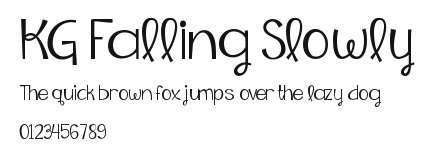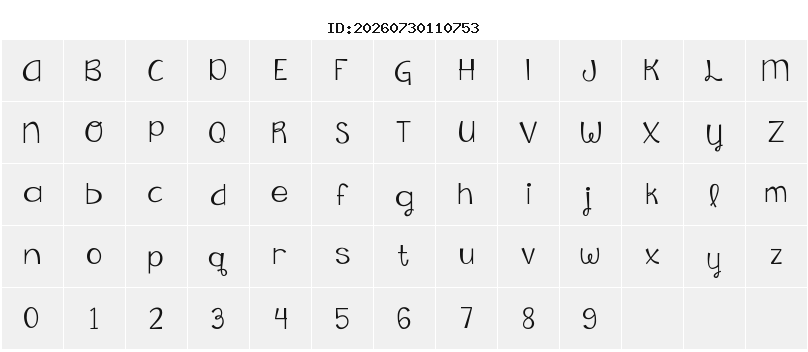
• Font Name: KG Falling Slowly
• Full Font Name: KG Falling Slowly
• Designer: Kimberly Geswein
About KG Falling Slowly.ttf
KG Falling Slowly.ttf is a modern, elegant sans-serif font designed for ultimate readability and visual harmony. Perfect for branding, headlines, web design, and print materials.